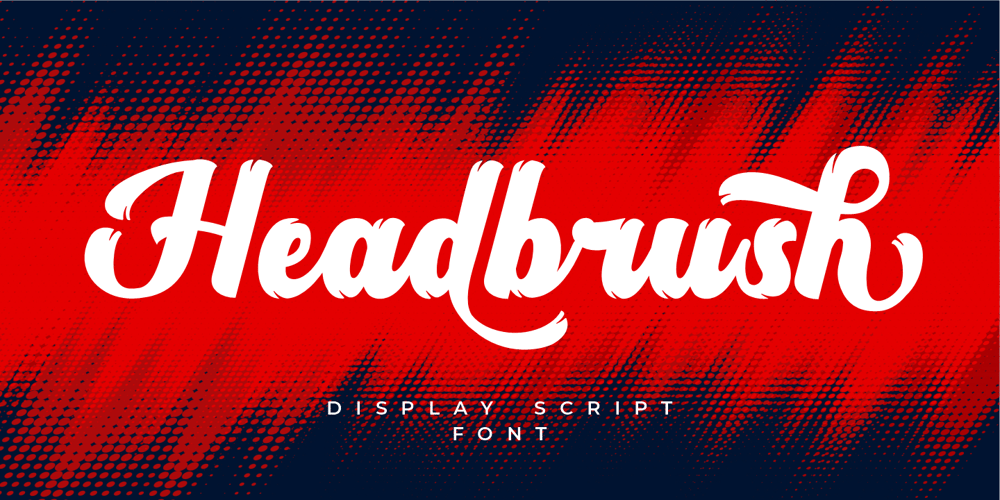
Headbrush Font Family was designed by Putra Novembria Candra Kusuma and published by Putracetol. Headbrush contains 1 styles and family package options. Headbrush is a bold script font with brush effects on each character. Those effects make this font unique and different.You can use this font for making an awesome logo, apparel projects, signature, album covers, posters, labels, branding, magazines, social media, & advertisements, but Headbrush also works great for other projects.Headbrush has many OpenType features like ligature, alternate and also multilingual support.